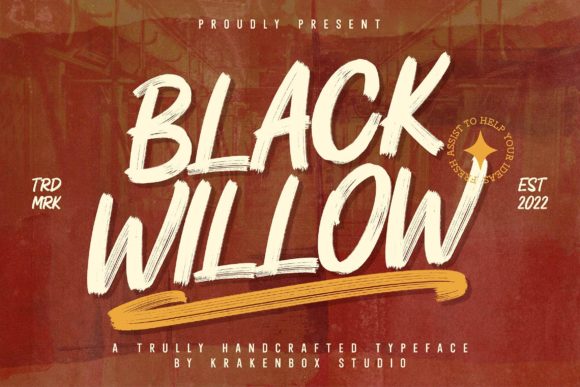
Introducing Black Willow Font: The Ultimate Choice for Designers and Crafters
Are you tired of using the same old fonts for your designs? Look no further than Black Willow Font, a cool and brushed display font that’s taking the design world by storm. With its textured inky touches, urban, vintage, cool vibes, and modern look, Black Willow Font is the perfect choice for designers and crafters looking to add a unique touch to their work.
What Makes Black Willow Font So Special?
Black Willow Font is a one-of-a-kind font that’s perfect for anyone looking to add a touch of edginess to their designs. Its unique textured inky touches give it a distinctive look that’s both urban and vintage. The font’s modern look makes it perfect for a wide range of design projects, from fashion and signature designs to album covers, logos, branding, magazines, social media posts, and more.
Key Features of Black Willow Font
- Cool and Brushed Texture: Black Willow Font features a cool and brushed texture that gives it a unique, hand-crafted look.
- Textured Inky Touches: The font’s textured inky touches add a touch of grit and urban feel to any design.
- Urban, Vintage, Cool Vibes: Black Willow Font has a distinctive urban, vintage, cool vibe that’s perfect for designers looking to add a touch of edginess to their work.
- Modern Look: Despite its vintage feel, Black Willow Font has a modern look that’s perfect for a wide range of design projects.
Uses for Black Willow Font
Black Willow Font is an incredibly versatile font that can be used for a wide range of design projects, including:
- Fashion Designs: Use Black Willow Font to add a touch of edginess to your fashion designs, from clothing and accessories to beauty and cosmetics.
- Signature Designs: Create unique and eye-catching signature designs with Black Willow Font.
- Album Covers: Use Black Willow Font to create striking album covers that grab attention.
- Logos and Branding: Create memorable logos and branding with Black Willow Font’s unique texture and modern look.
- Magazines and Social Media Posts: Use Black Willow Font to add a touch of style and sophistication to your magazines and social media posts.
Why Designers and Crafters Love Black Willow Font
Designers and crafters love Black Willow Font for its unique texture, versatility, and ease of use. Here are just a few reasons why:
- High-Quality Design: Black Willow Font is designed with high-quality graphics and a unique texture that makes it stand out from other fonts.
- Versatile: Black Willow Font can be used for a wide range of design projects, from fashion and signature designs to album covers and logos.
| Font Name | Black Willow Font |
| Author | krakenboxstudio |
If you’re looking for a font that adds a touch of edginess and sophistication to your designs, look no further than Black Willow Font. With its unique textured inky touches, urban, vintage, cool vibes, and modern look, Black Willow Font is the perfect choice for designers and crafters looking to take their work to the next level.